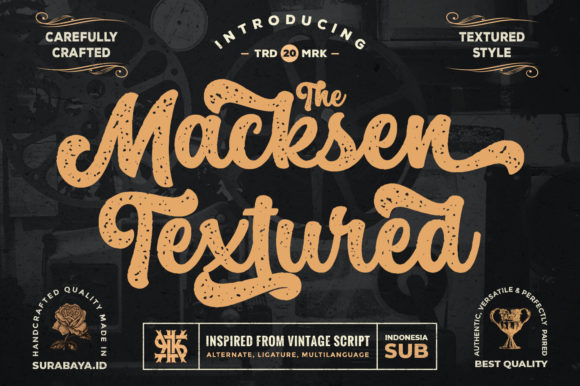
Introducing The Macksen Textured Font: Where Charm Meets Authenticity
In a world saturated with digital monotony, The Macksen Textured Font emerges as a breath of fresh air, inviting you to rediscover the allure of classic typography. This captivating script font, meticulously crafted by Kotak Kuning Studio, oozes charm and authenticity, promising to transform your creative visions into tangible works of art.
Step into a world where handwritten elegance meets modern versatility, where every letter dances across the screen with a touch of whimsy and grace. The Macksen's intricate swashes and carefully designed ligatures elevate your designs to new heights, effortlessly adding a touch of sophistication to your Instagram posts, DIY projects, and any creative endeavor you can imagine.
Embrace the enduring appeal of classic typing with The Macksen, a font that harkens back to a simpler time, where handwritten letters conveyed emotions and stories. Its timeless beauty and undeniable charm will captivate your audience, leaving them with a lasting impression that lingers long after they've closed their screens.
With The Macksen, you'll discover endless possibilities for self-expression. Whether you're a seasoned designer seeking inspiration or a novice crafter yearning for a touch of elegance, this font will ignite your imagination and unlock a world of creative opportunities.
Don't settle for ordinary fonts that blend into the background. Embrace the beauty of authenticity with The Macksen Textured Font. Let your words dance with grace, your designs radiate charm, and your projects exude a touch of timeless elegance. Dive into the world of The Macksen today and experience the magic of classic typography reborn.